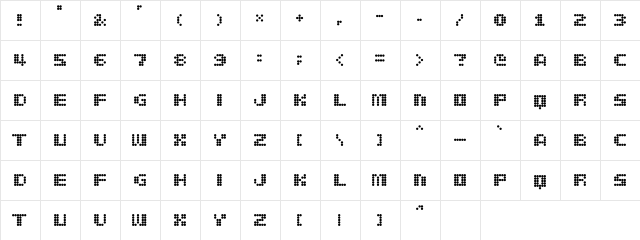
delia Regular Font Preview
delia Regular
delia Regular Font Details
Design Context for delia Typeface
delia is a composed and adaptable typeface that performs quietly and consistently across a wide range of design contexts.